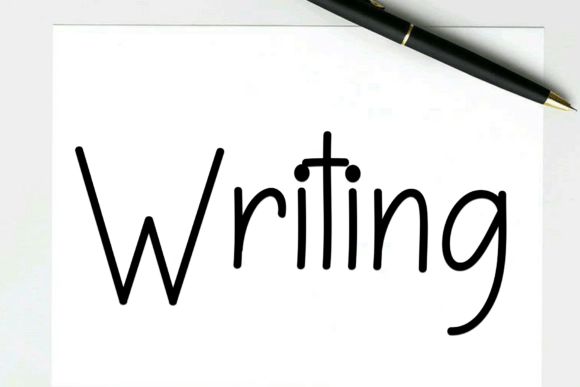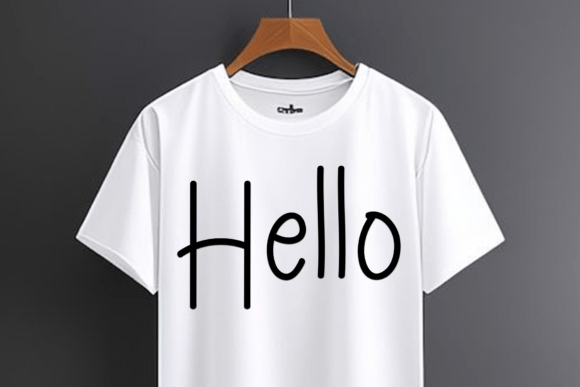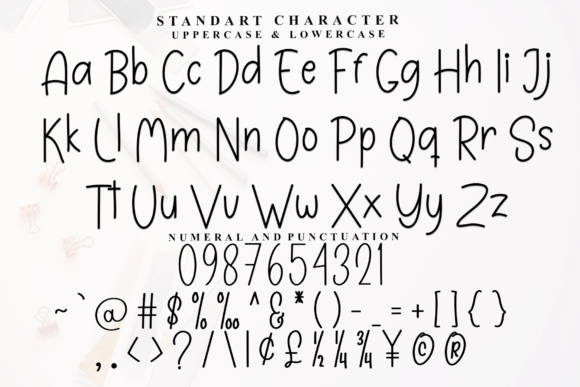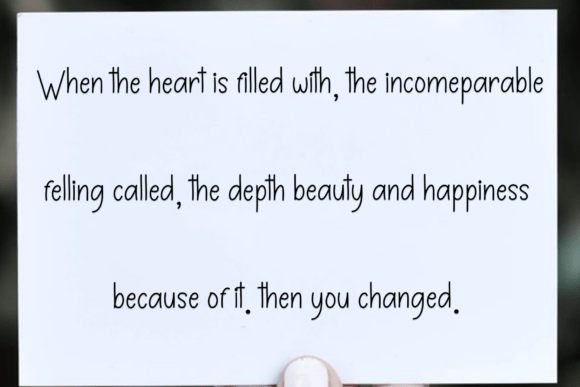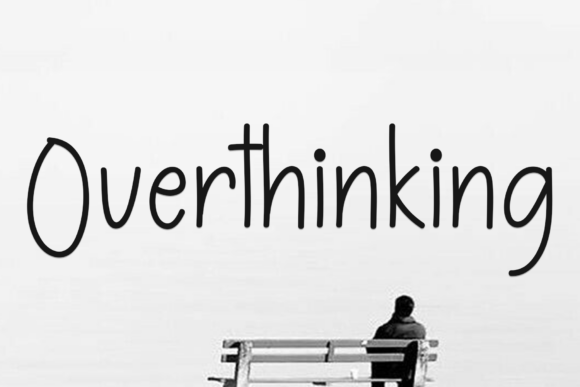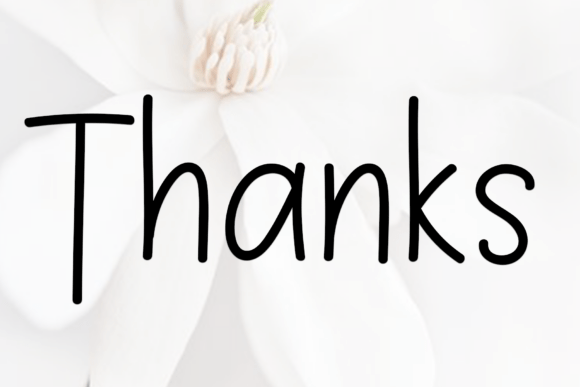
Introducing Happy Wonderful Font: The Ultimate Choice for Modern Design
In the world of typography, a good font can make all the difference in creating a lasting impression. For designers and crafters looking for a sleek and modern typeface, Happy Wonderful Font is an excellent choice. This minimalist sans serif font is designed with an airy, approachable aesthetic that is perfect for a variety of design applications.
What Makes Happy Wonderful Font Stand Out
Happy Wonderful Font boasts exceptionally tall letterforms with a fine, monolinear stroke weight and smooth, rounded joins. Its high x-height and narrow proportions give the text an organized and contemporary visual flow that remains highly legible. This makes it an ideal choice for designers who want to create a clean and modern look for their projects.
Some of the key design characteristics of Happy Wonderful Font include:
- Sleek and minimalist design: The font features a simple and airy design that is perfect for modern brands and designs.
- Tall letterforms: The exceptionally tall letterforms give the text a elegant and sophisticated look.
- Fine, monolinear stroke weight: The fine stroke weight adds a touch of elegance and refinement to the font.
- Smooth, rounded joins: The smooth joins give the font a seamless and cohesive look.
- High x-height: The high x-height makes the font highly legible, even at small sizes.
- Narrow proportions: The narrow proportions give the text a contemporary and organized visual flow.
Use Cases for Happy Wonderful Font
Happy Wonderful Font is an versatile font that can be used in a variety of design applications, including:
- Minimalist floral branding: The font’s clean and modern design makes it perfect for floral brands that want to convey a sense of elegance and sophistication.
- Lifestyle editorial layouts: The font’s high legibility and contemporary visual flow make it ideal for editorial layouts that require a clean and modern look.
- Organic beauty packaging: The font’s natural and effortless aesthetic makes it perfect for organic beauty brands that want to convey a sense of naturalness and purity.
- Clean social media headers: The font’s simple and modern design makes it perfect for social media headers that require a clean and contemporary look.
Why Choose Happy Wonderful Font?
There are many reasons why designers and crafters should choose Happy Wonderful Font for their projects. Here are a few:
- Unique and modern design: The font’s sleek and minimalist design makes it stand out from other fonts.
- High legibility: The font’s high x-height and narrow proportions make it highly legible, even at small sizes.
- Versatility: The font can be used in a variety of design applications, from branding and editorial layouts to packaging and social media headers.
- Ease of use: The font is easy to use and can be easily integrated into design projects.
In conclusion, Happy Wonderful Font is an excellent choice for designers and crafters looking for a sleek and modern typeface. Its unique and modern design, high legibility, and versatility make it perfect for a variety of design applications. Whether you’re creating a minimalist floral brand, a lifestyle editorial layout, or an organic beauty packaging design, Happy Wonderful Font is sure to impress.